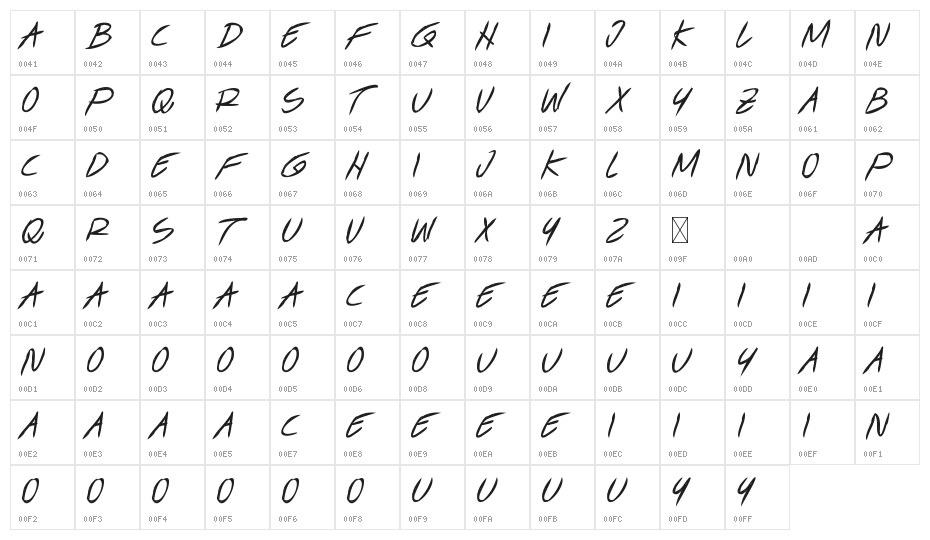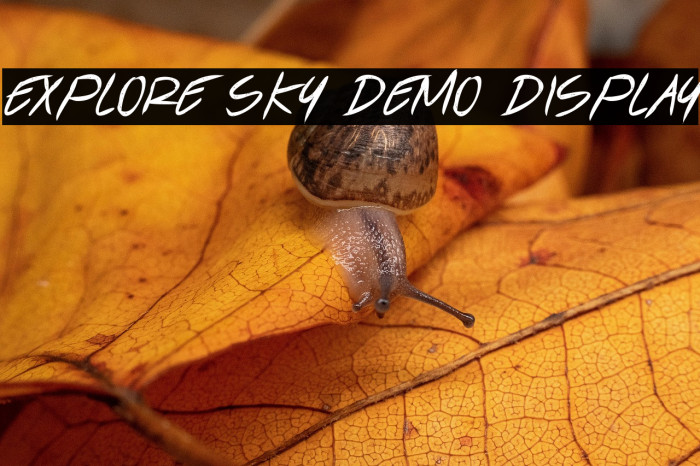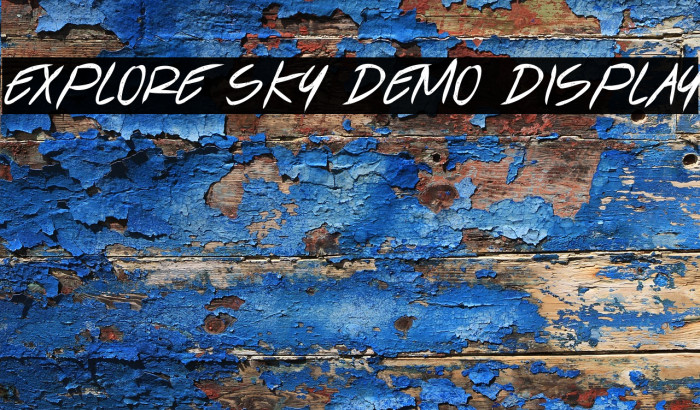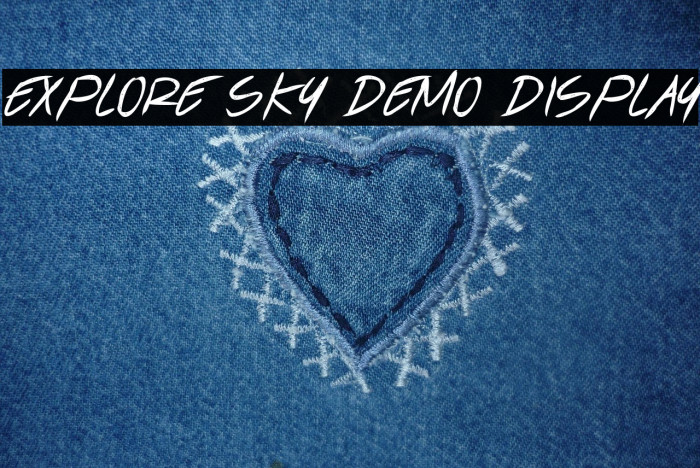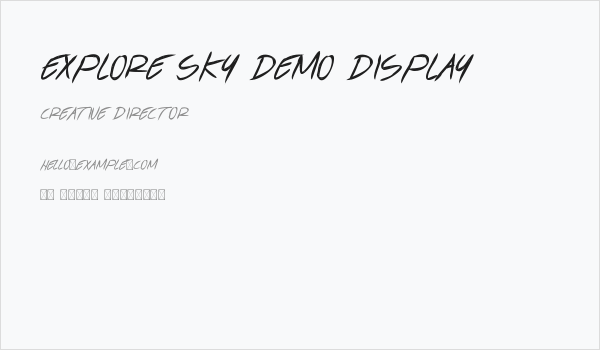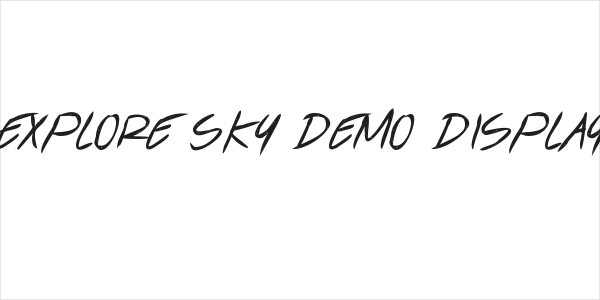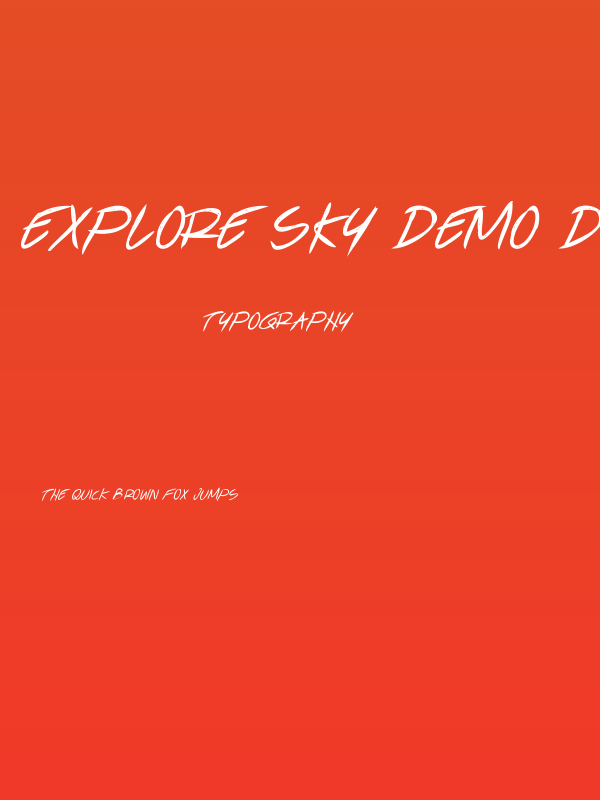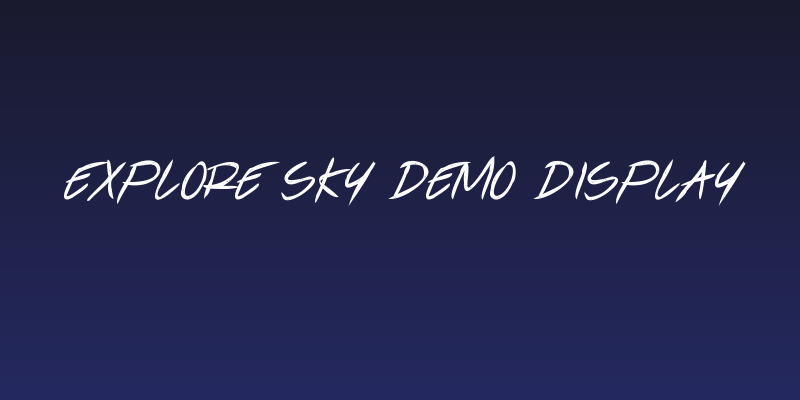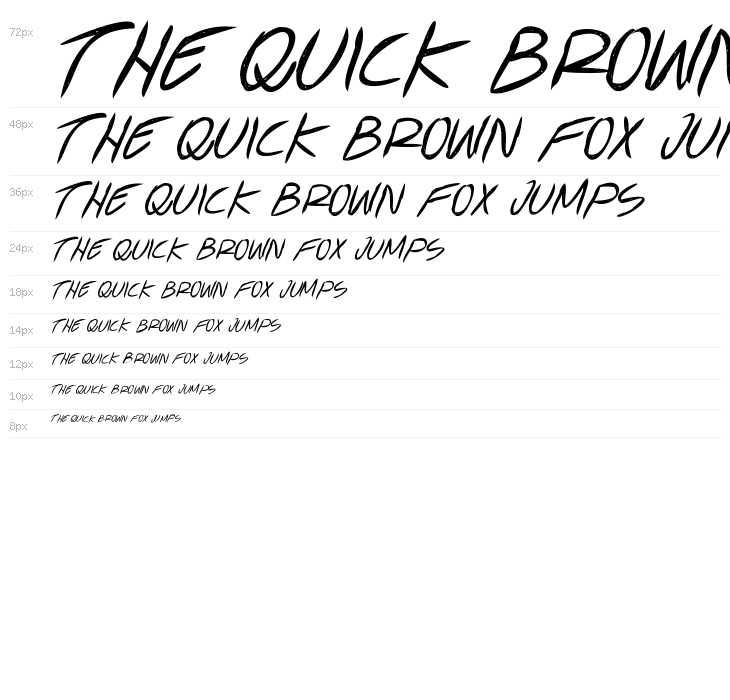
Explore Sky Demo Display Font
Explore Sky Demo Display Description
This font features a dynamic and energetic script style, characterized by its fluid, handwritten appearance. The letters are slightly slanted, giving a sense of motion and spontaneity. The strokes are bold and consistent, with a medium contrast that enhances readability while maintaining a casual, artistic flair. The character spacing is tight, allowing the letters to flow seamlessly into one another, creating a cohesive and visually appealing text. This style is reminiscent of quick, expressive handwriting, making it suitable for projects that require a personal touch.
Use CaseLogos, Headlines, Invitations
Proposed ProjectsIdeal for branding, invitations, greeting cards, and artistic projects that require a personal, expressive touch.